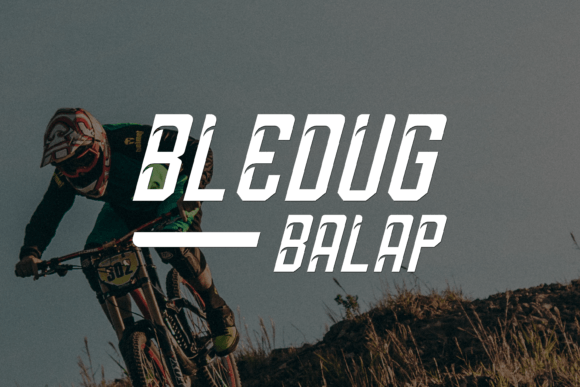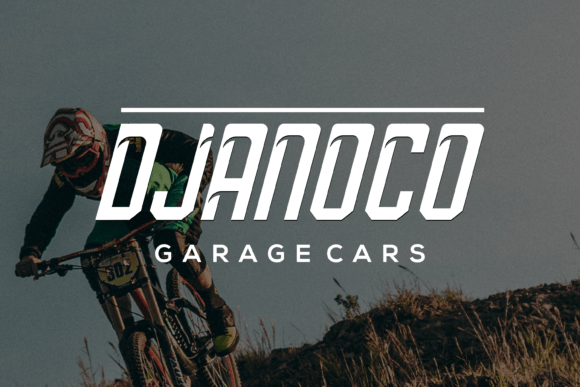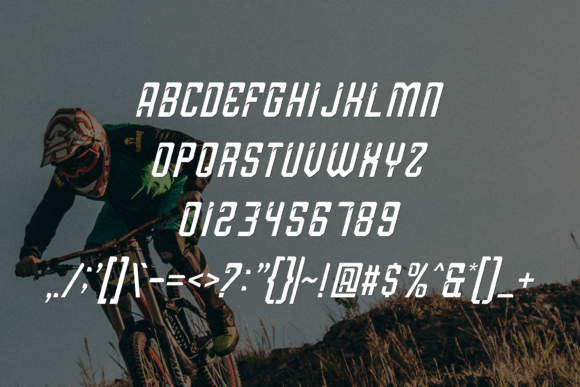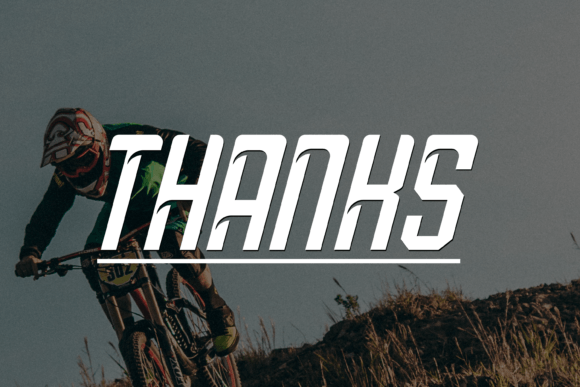
Gendons Font: Elevate Your Designs with a Modern Twist
Are you tired of using the same old fonts in your designs? Look no further than Gendons Font, a sans serif font with a charming touch of style that’s perfect for adding a modern vibe to your creative projects. In this article, we’ll dive into the world of Gendons Font, exploring its features, benefits, and uses, as well as provide tips and inspiration for designers and crafters.
What is Gendons Font?
Gendons Font is a sans serif font that boasts a clean and minimalist aesthetic, making it perfect for a wide range of design applications. Its sleek lines and modern style give it a fresh and contemporary feel that’s sure to elevate your designs. But what sets Gendons apart from other sans serif fonts is its charming touch of style, which adds a hint of personality and whimsy to your text.
Key Features of Gendons Font
- Clean and minimalist design: Gendons Font features a sleek and modern design that’s perfect for creating clean and elegant text.
- Charming touch of style: The font’s unique style adds a hint of personality and whimsy to your text, making it stand out from the crowd.
- Sans serif: Gendons Font is a sans serif font, which means it’s perfect for use in digital and print designs.
- Highly legible: The font is designed to be highly legible, even at small sizes, making it perfect for use in a wide range of design applications.
Benefits of Using Gendons Font
So why should you choose Gendons Font for your designs? Here are just a few benefits of using this versatile font:
- Adds a modern touch: Gendons Font is perfect for adding a modern vibe to your designs, making it ideal for use in contemporary branding, advertising, and marketing materials.
- Versatile: The font is highly versatile and can be used in a wide range of design applications, from digital projects to print materials.
- Easy to read: Gendons Font is highly legible, making it perfect for use in body text, headlines, and titles.
- Unique style: The font’s charming touch of style sets it apart from other sans serif fonts, making it perfect for designers who want to add a hint of personality to their text.
Using Gendons Font in Your Designs
So how can you use Gendons Font in your designs? Here are a few ideas to get you started:
- Branding and logos: Use Gendons Font to create modern and stylish branding and logos that will help your business stand out.
- Headlines and titles: The font’s clean and elegant design makes it perfect for use in headlines and titles, adding a touch of sophistication to your text.
- Body text: Gendons Font is also highly legible, making it perfect for use in body text, articles, and blog posts.
- Digital projects: The font is perfect for use in digital projects, such as websites, social media graphics, and email marketing campaigns.
Here are a few tips and inspiration to help you get the most out of Gendons Font:
- Experiment with different sizes: Gendons Font looks great at a wide range of sizes, so don’t be afraid to experiment and find the perfect size for your design.
- Pair with other fonts: The font pairs well with other sans serif fonts, as well as serif fonts, so feel free to get creative and experiment with different font combinations.
- Use in combination with images: Gendons Font looks great in combination with images, so try using it to add text to your photos, illustrations, and graphics.
In conclusion, Gendons Font is a versatile and stylish sans serif font that’s perfect for adding a modern touch to your designs. Its clean and elegant design, charming touch of style, and high legibility make it perfect for use in a wide range of design applications. Whether you’re a designer, crafter, or DIY enthusiast, Gendons Font is a great choice for anyone looking to elevate their designs and add a touch of personality to their text.